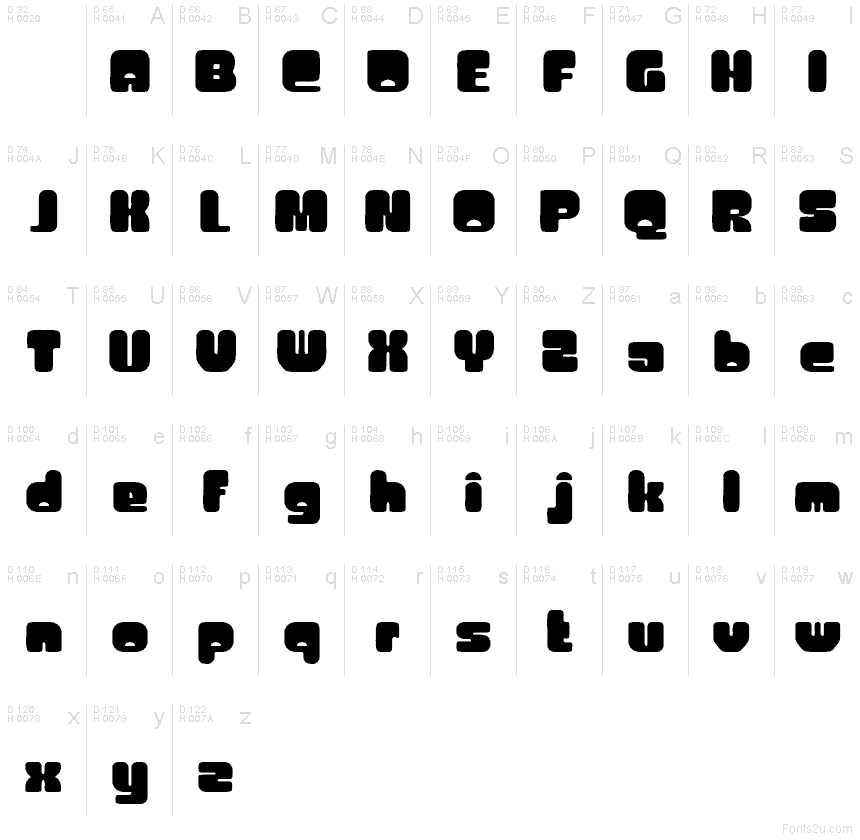
CSBougyDrawn-Regular Demo
CS Bougy Drawn font by Craft Supply Co. is a groovy display typeface that stands out with its remarkable appearance. Its rounded and bold letters give it an expanded appearance, almost like an Outlined version of CS Bougy Bold. It’s geometric, modern, and retro-inspired all at once with a pronounced presence that makes it hard to ignore.